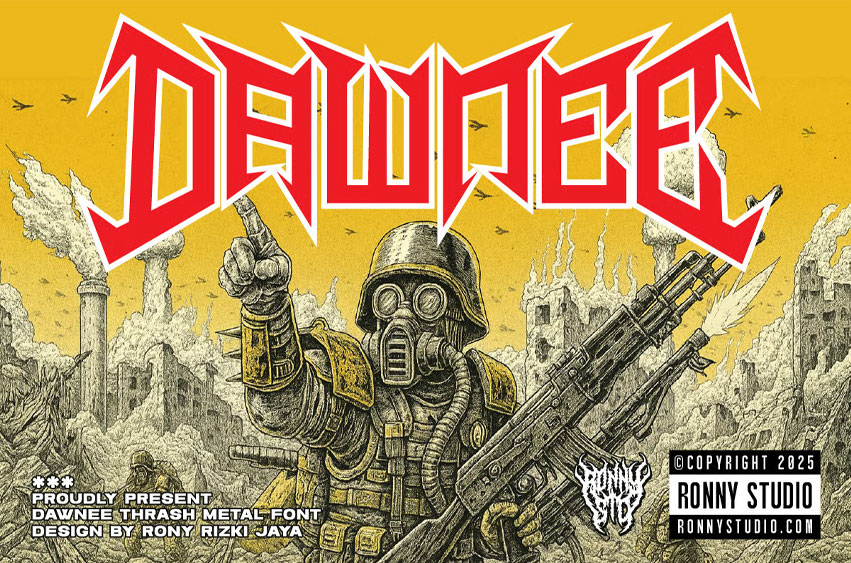
Dawnee Font
Dawnee Font Unleash bold energy into your designs with Dawnee, a fierce thrash metal display font that embodies power, rebellion, and underground attitude. Its sharp letterforms and aggressive strokes bring a raw edge that instantly grabs attention — perfect for creative works that need intensity and impact.
Inspired by heavy music culture, bold poster art, and dark graphic themes, Dawnee gives your typography a commanding and unforgettable presence. From album covers and event posters to digital artwork and branding visuals, Dawnee stands out with its distinct thrash-inspired style.
Font Features:
• Authentic thrash metal display style
• Sharp, energetic letterforms with a unique personality
• Uppercase, lowercase, numbers, alternates, symbols & punctuation
• Music branding & promotional visuals
• Gig & concert posters
• Album and cover artwork
• Underground design projects
• Bold typographic titles